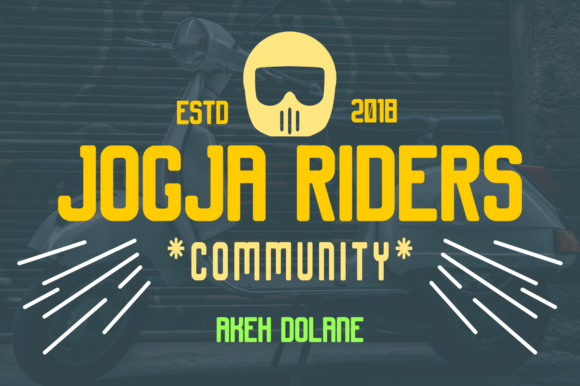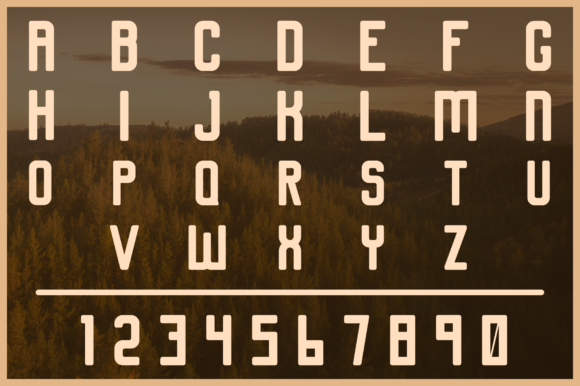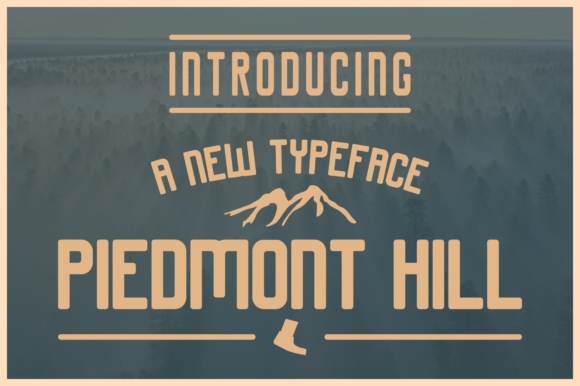
Introduction to Piedmont Hill Font
Have you ever been brainstorming ideas for a creative project, only to be struck by the perfect font at just the right moment? It’s as if the universe aligns, and everything clicks into place. For designers, finding that perfect font can be a game-changer – it’s the difference between a good design and a great one.
Enter the Piedmont Hill Font, a bold display typeface that’s sure to make your designs stand out. With its high quality and striking appearance, this font is a valuable resource for any designer looking to add a touch of sophistication to their work. Whether you’re working on a project with a transparent background or simply want to elevate your design to the next level, the Piedmont Hill Font is an excellent choice.
Piedmont Hill Font
- Unique characteristics include its modern and sophisticated feel, making it perfect for branding, logos, and other creative projects.
Honest Review: Piedmont Hill Font
I recently stumbled upon the Piedmont Hill Font, and I must say, it’s been a great addition to my design resource library. As a designer, I’m always on the lookout for high-quality fonts that can elevate my creative projects. The Piedmont Hill Font does just that, with its elegant and refined style.
One of the standout features of this font is its transparent background, which makes it incredibly versatile. I’ve used it for everything from headings to body text, and it always looks great. ✨
Here are some of the key features that I appreciate about the Piedmont Hill Font:
- Transparent background for easy use on any background
- Comes in a range of weights and styles to suit different needs
Of course, no font is perfect, and the Piedmont Hill Font has a few limitations. ⚠️ For one, the font may not be suitable for very small text sizes, as it can become difficult to read. Additionally, the font may not be as widely supported as some other fonts, so it’s essential to test it thoroughly before using it in a critical project.
Overall, I’m thoroughly impressed with the Piedmont Hill Font. It’s a great addition to any designer’s toolkit, and I highly recommend it for any creative project that requires a high-quality font.
The Piedmont Hill Font is a high-quality, free download design resource ideal for creative projects that require a unique touch. Its transparent background makes it perfect for overlaying on images or using as a standalone element.
Common Use Cases for Piedmont Hill Font
The Piedmont Hill Font is suitable for a variety of design projects, including wedding invitations, business cards, and social media graphics.